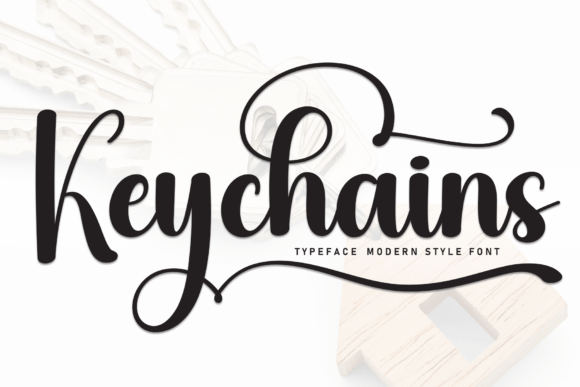
Dive into the world of creativity with Keychains Font, an enchanting handwritten script that captivates the soul with its sweetness and charm. Each letter dances across the page, forming harmonious words that ignite the imagination.
This font is no ordinary typeface; it's a symphony of artistry, a visual masterpiece that transforms your designs into captivating works of art. Whether you're a seasoned designer or just starting your creative journey, Keychains Font is your key to unlocking a world of endless possibilities.
With its natural and unique style, Keychains Font blends seamlessly into a myriad of design concepts, effortlessly elevating them to new heights of elegance and sophistication. From whimsical invitations to captivating social media posts, Keychains Font adds a touch of magic to every project, leaving a lasting impression on your audience.
Unleash your creativity and explore the boundless opportunities that await you with Keychains Font. Let your imagination soar as you craft stunning logos, eye-catching branding materials, and captivating website designs. The possibilities are limitless, bound only by the depths of your creative spirit.
Keychains Font is your passport to a world of design excellence, where every letter tells a story and every word captivates the heart. Its sweet and friendly demeanor invites your audience into your creative world, leaving them spellbound and eager for more.
Join the ranks of creative visionaries who have embraced the magic of Keychains Font, and elevate your designs to new heights of brilliance. Experience the transformative power of this enchanting font today and let your creativity flourish like never before!